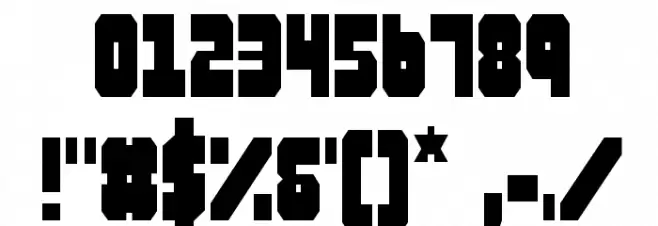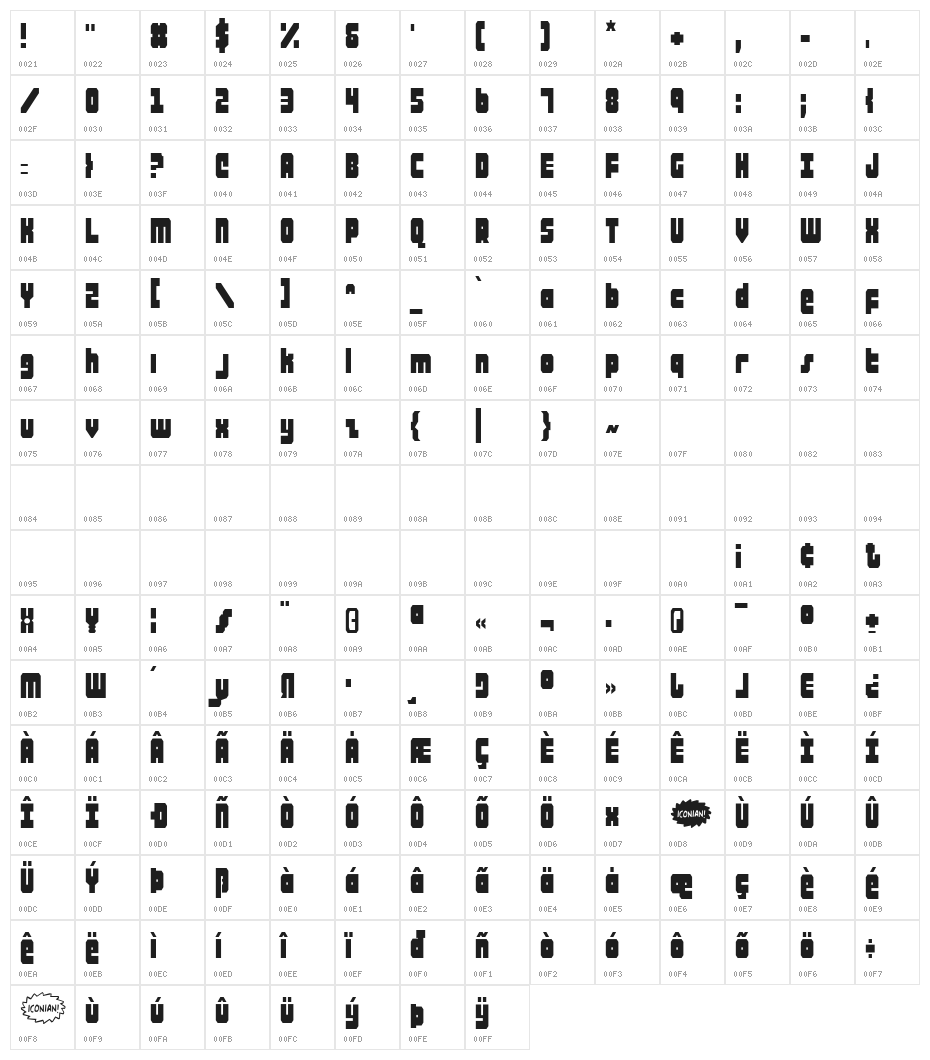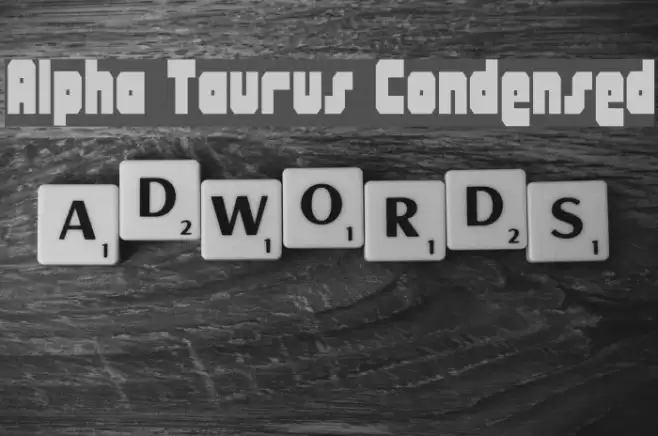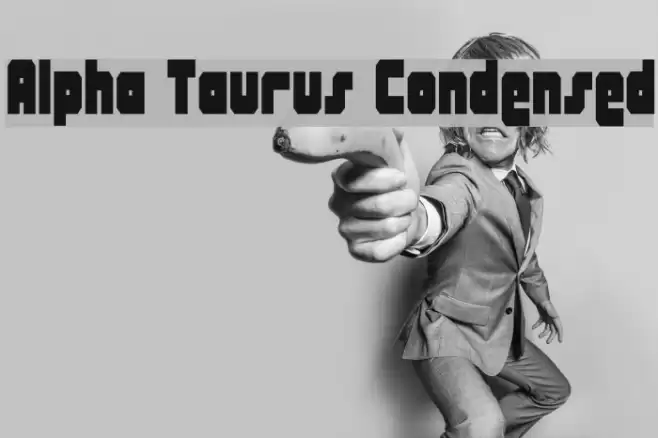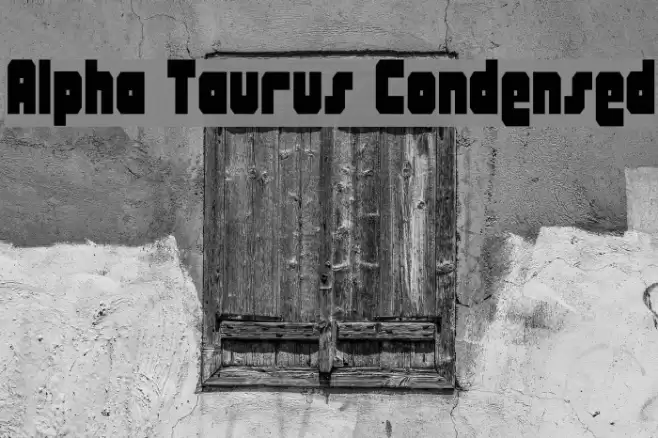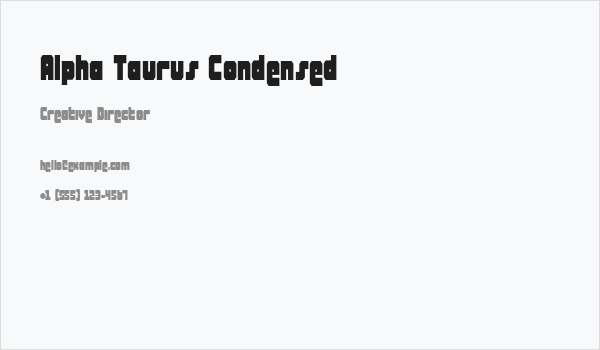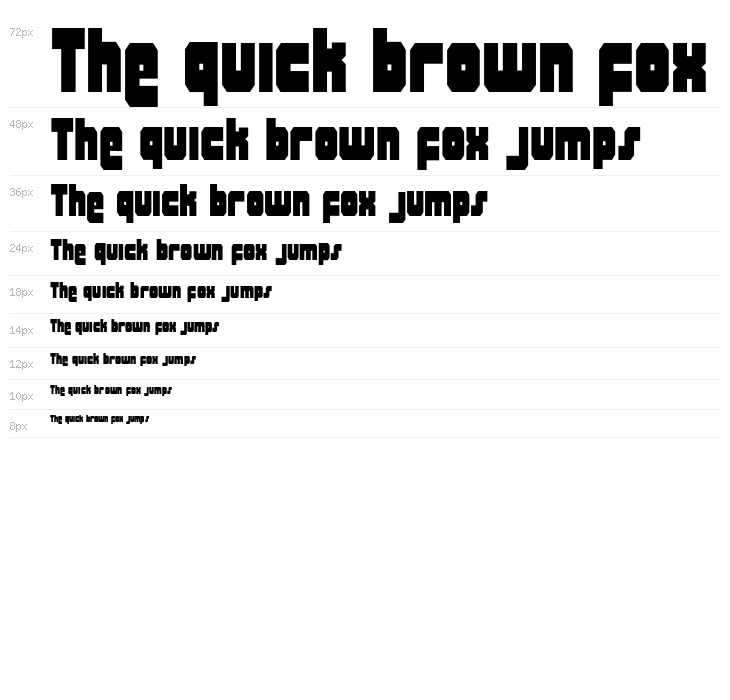
Alpha Taurus Condensed Font
Alpha Taurus Condensed Description
This font features a bold, geometric design with a condensed structure, giving it a strong and impactful presence. The characters are blocky and angular, with sharp edges and a uniform thickness throughout. The uppercase and lowercase letters maintain a consistent style, enhancing readability while retaining a distinct, modern aesthetic. Numbers and special characters follow the same design principles, ensuring a cohesive look across all text elements. The font's condensed nature makes it suitable for space-saving applications without sacrificing legibility.